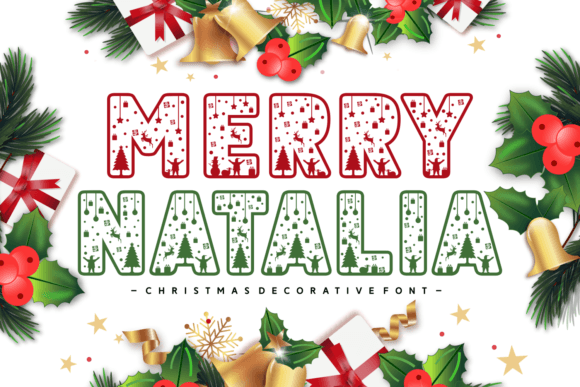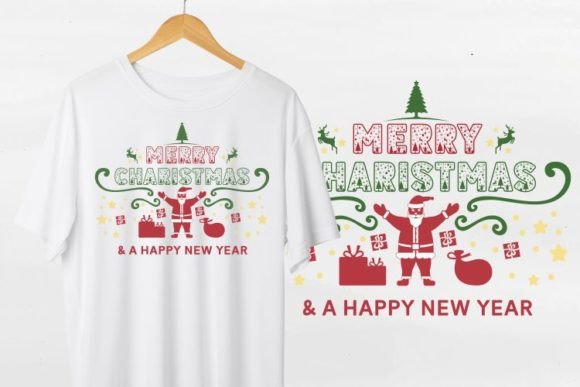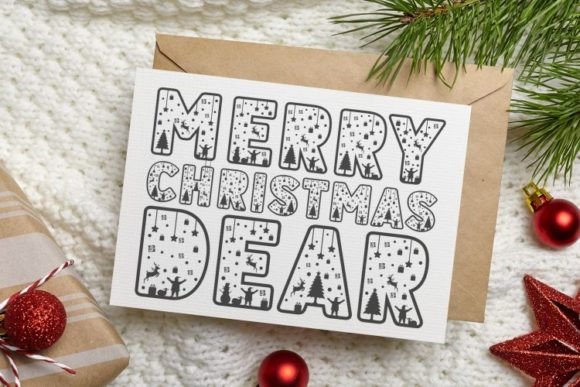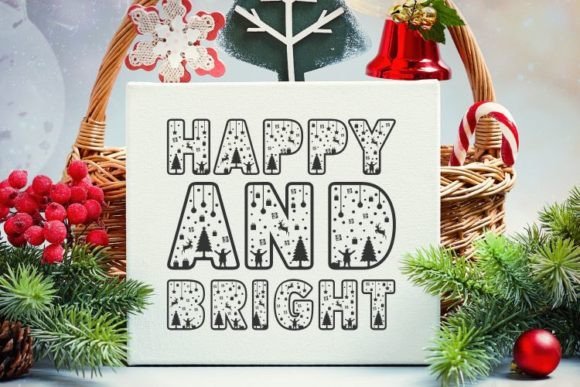
Merry Natalia Font: A Festive Decorative Font for Cricut & DIY
About the Merry Natalia Font
Crafted with precision, the Merry Natalia Font is ready to bring your ideas to life. Merry Natalia is a festive and bold decorative font that can take all your Christmas creations from good to extraordinary.
Merry Natalia’s bold, decorative style is ideally suited for headlines, short celebratory messages, and festive branding projects. It excels in applications like Christmas cards, gift tags, posters, and social media graphics where its playful energy can shine. However, its ornate forms make it less suitable for body text or UI elements requiring high readability.
For optimal visual harmony, pair Merry Natalia with a clean sans-serif font like Open Sans for body text or a simple serif like Lora for a more classic feel. These pairings provide a strong contrast, allowing Merry Natalia’s festive character to stand out while maintaining legibility. A geometric sans-serif could also work well, adding a modern touch to balance its vintage-inspired charm.
Its core personality is undeniably festive and playful, making it a strong choice for brands aiming for a cheerful and memorable visual identity. Avoid using it in contexts requiring sophistication or formality.
Merry Natalia Font Usage Examples
Merry Natalia Font Example